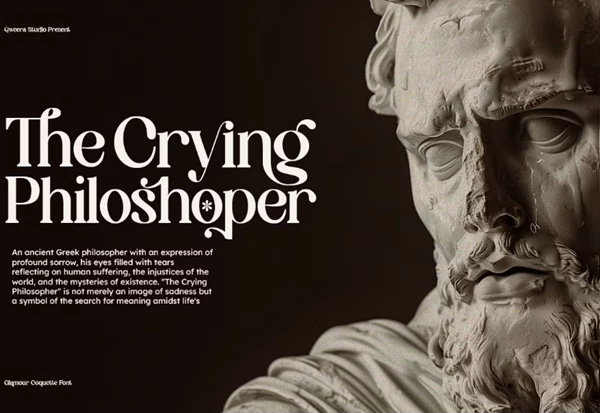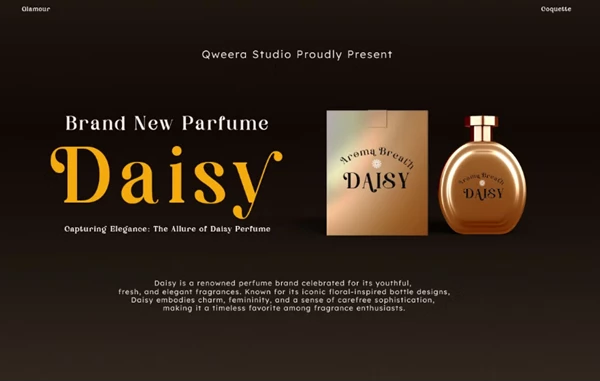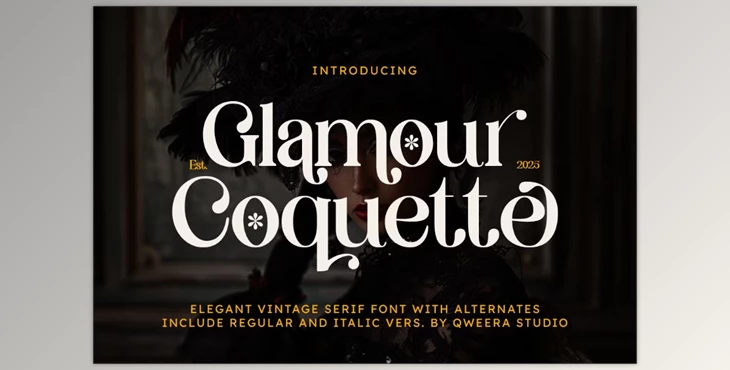
Glamour Coquette - Elegant Vintage Font:
Vintage glamour sets the coquette font apart from other series, with striking designs and cross-stitches that effortlessly shout contemporary. It comes with alternates and ligatures, making it ideal for upscale branding, editorial spreads, and rich print materials. Be it posters, magazines, logos, or invitations, the coquette serif brings classic, timeless elegance and pristine graphic design to the table and can work as capstone projects like a funnel for timeless glamour. The font is rich-looking yet easy to read, which is great for those who desire maximum standing out without losing versatility. It works best with luxury branding, packaging, and classical-themed designs.